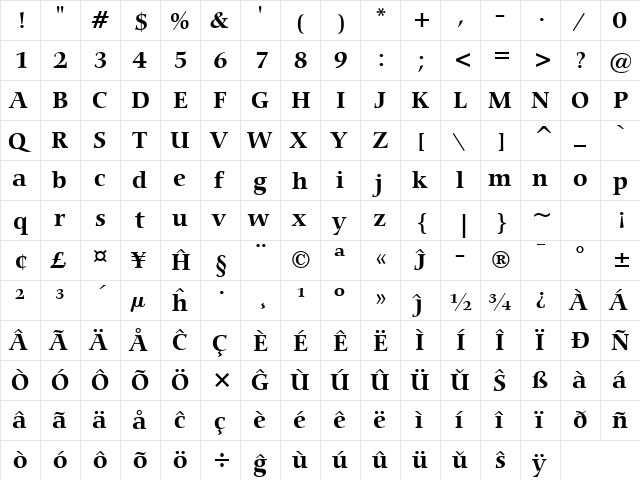
Carmina Md BT Eo Bold Font Preview
Carmina Md BT Eo Bold
Carmina Md BT Eo Bold Font Details
Design Context for Carmina Md BT Eo Typeface
Carmina Md BT Eo takes a measured approach to typography — its balanced proportions and neutral character make it a reliable workhorse for both digital and print work. The heavy weight commands attention and anchors typographic hierarchies.